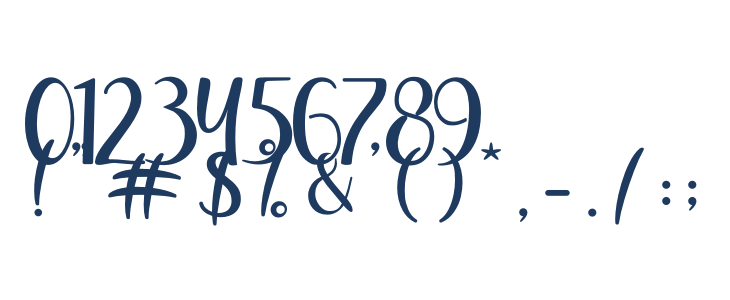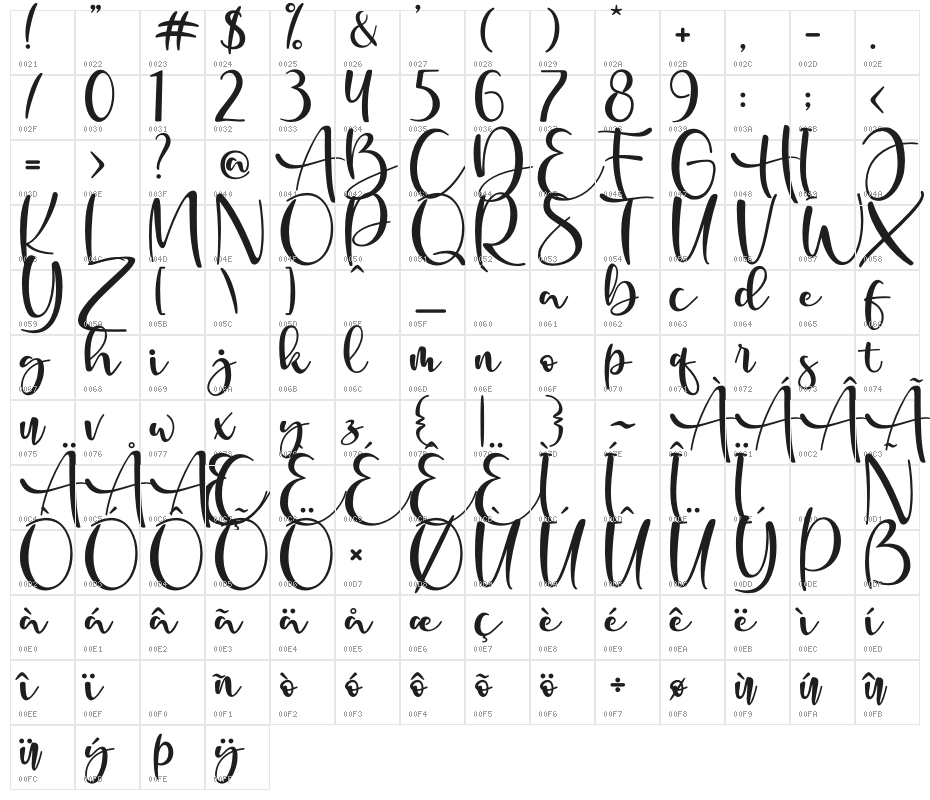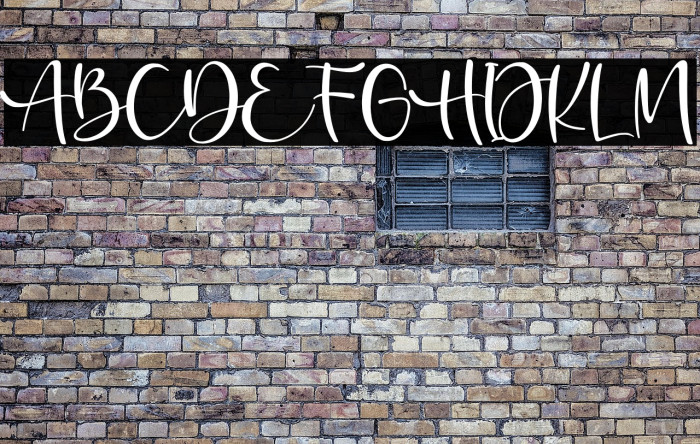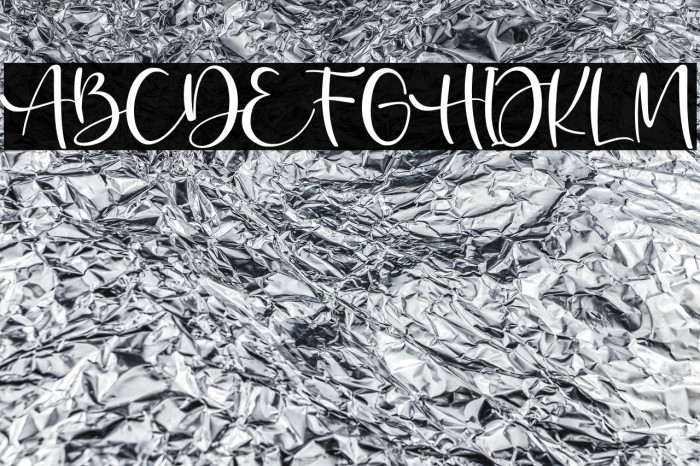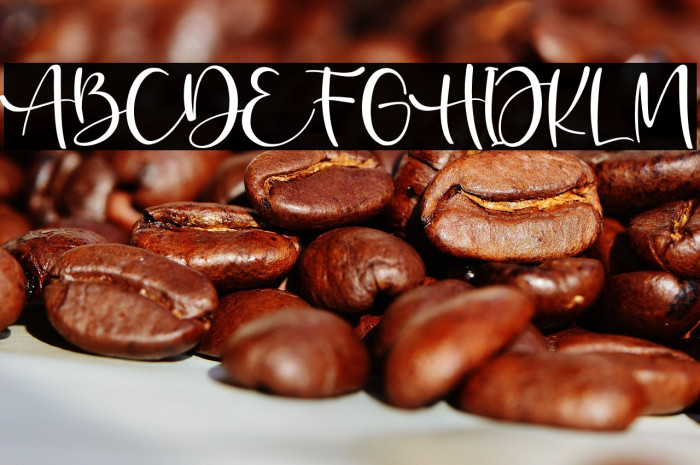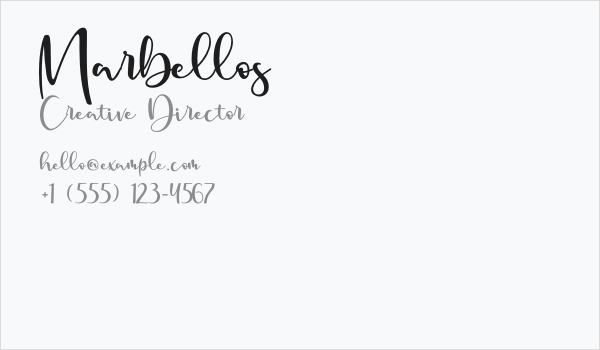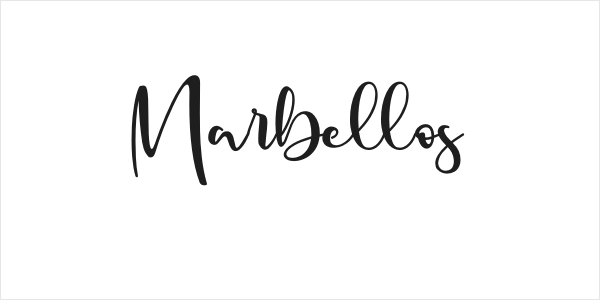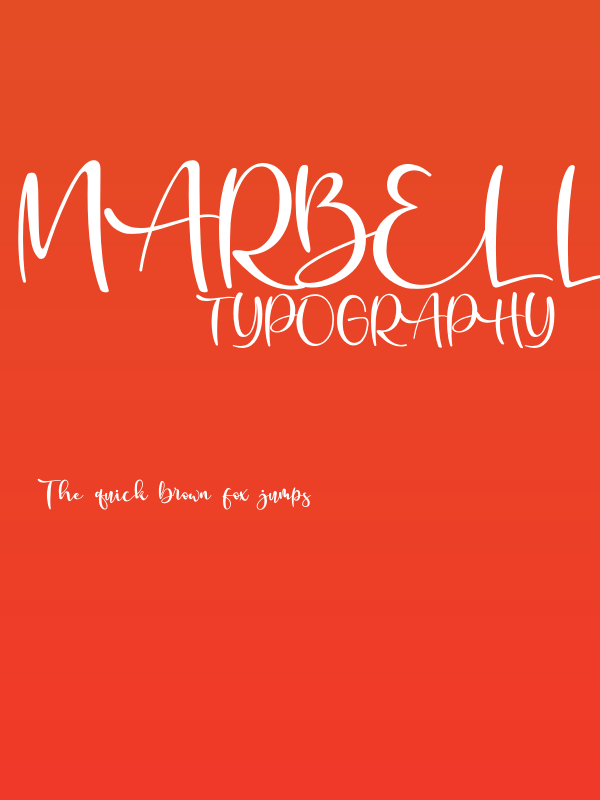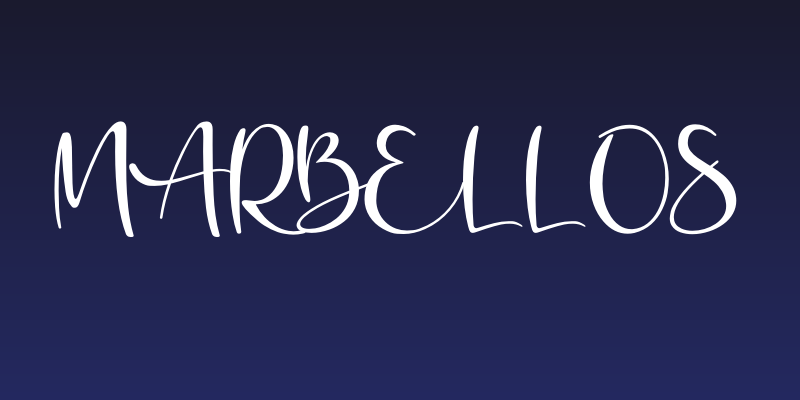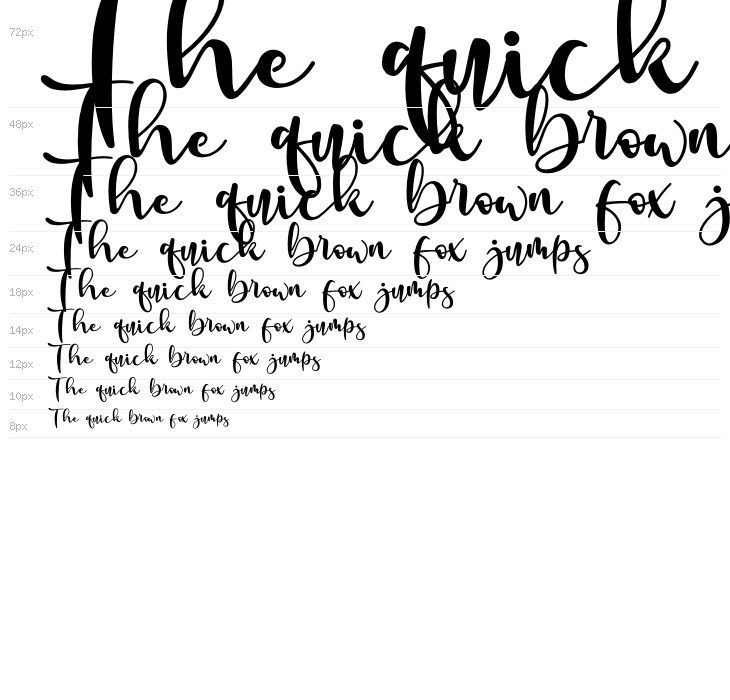
Marbellos Font
Marbellos Description
This font features a lively and flowing script style with a modern touch. The uppercase letters are elegantly crafted with smooth curves and a slight slant, giving them a dynamic and energetic appearance. The lowercase letters maintain a consistent flow, with playful loops and swashes that add a whimsical charm. The numerals are bold and slightly condensed, ensuring readability while maintaining the font's overall playful aesthetic. Special characters are creatively designed, complementing the font's unique style. This font is perfect for projects that require a personal and artistic touch, such as invitations, greeting cards, and branding materials.
| Proposed Projects | Ideal for invitations, greeting cards, branding, and artistic projects. |